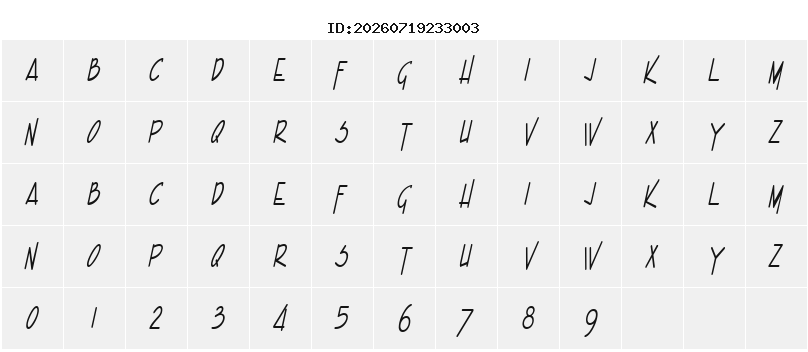
Enview Light Preview
• Font Name: Enview Light
• Font Style: BoldItalic
• Font ID: Altsys Fontographer 4.1 Enview Light BoldItalic
• Full Font Name: Enview Light BoldItalic
About Enview Light.ttf
Enview Light.ttf is a modern, elegant sans-serif font designed for ultimate readability and visual harmony. Perfect for branding, headlines, web design, and print materials.